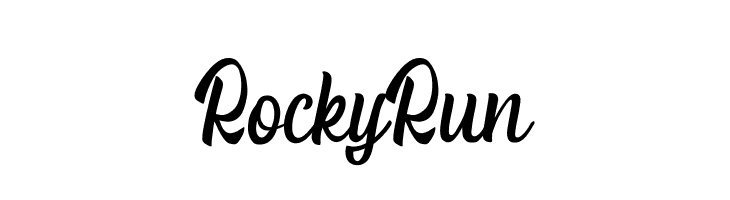
( Fonts by Jonathan S. Harris )
A bold, textured font with a rugged, rocky appearance.
A dynamic, fluid handwritten font with smooth, flowing strokes.
A bold, brush-style font with dynamic and expressive strokes.
A bold, brush-style italic font with dynamic, hand-painted strokes.
A playful, bold, and hand-drawn style font with a whimsical appearance.
( Fonts by Letterena Studios )
A bold, playful font with rounded characters and a whimsical style.
A bold, italic font with a dynamic and energetic style.
( Fonts by Letterena Studios )
A bold, italic script font with a playful and dynamic style.
( Fonts by MonkeyRoodles Fonts )
A playful, casual handwritten font with consistent line weight and whimsical strokes.
( Fonts by uatype.faithweb.com - UnAuthorized Type )
A playful, dot-based decorative font ideal for eye-catching designs.